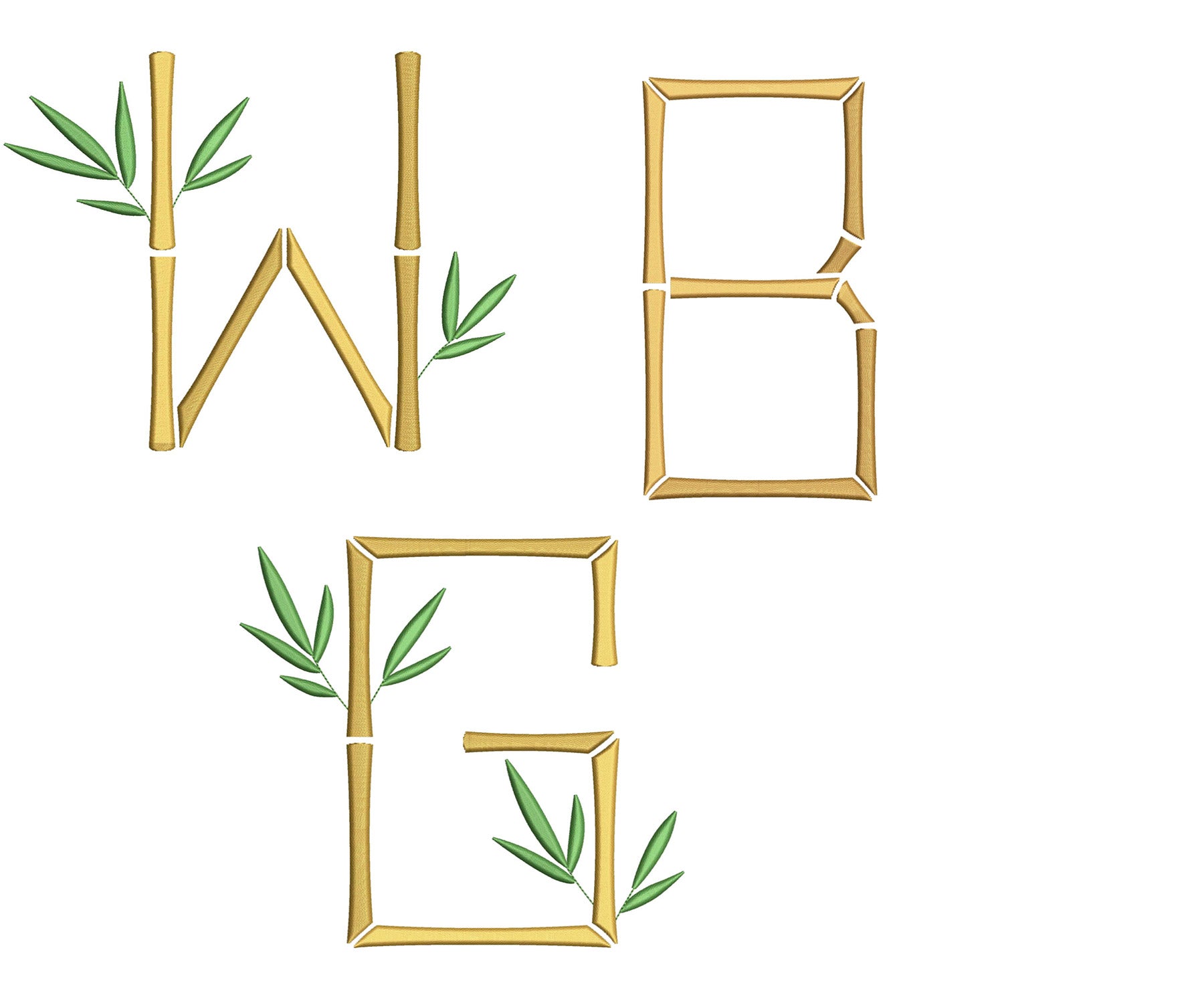
Single Bamboo Font for Embroidery
Our Single Bamboo Font is a beautiful collection of bamboo letters with 2 designs for each letter of the alphabet (a total of 52 files). This fabulous package includes:
• 26 bamboo letters
• 26 bamboo letters with bamboo leaves
• 10 bamboo numbers
• 4 bamboo-inspired frames
• Satin-stitch designs
Perfect for embroidery, the careful attention in the digitization of each design makes personalization unique and beautiful!